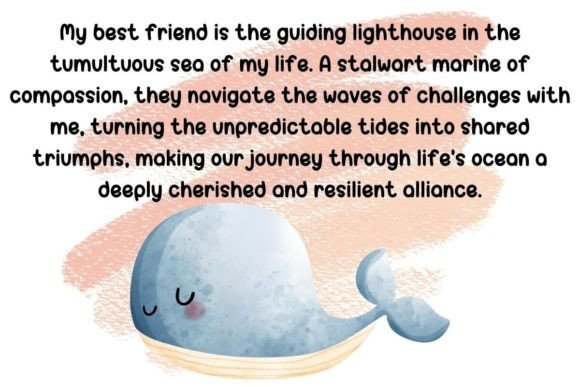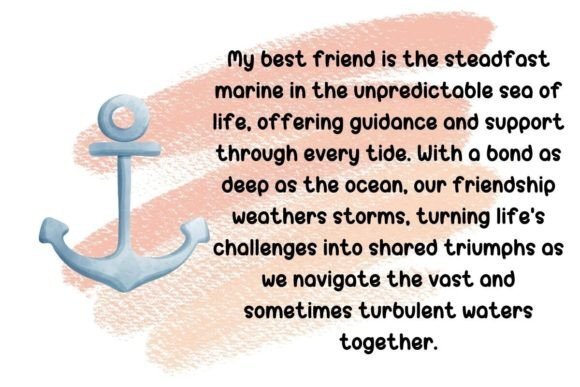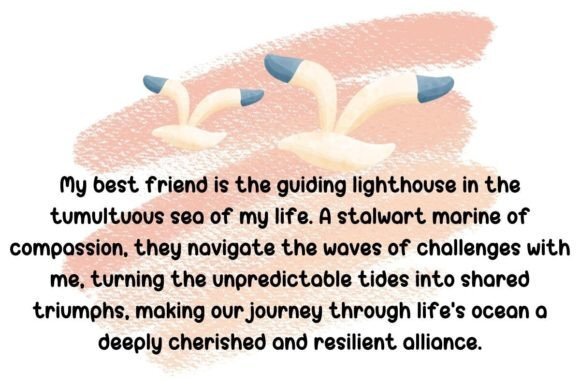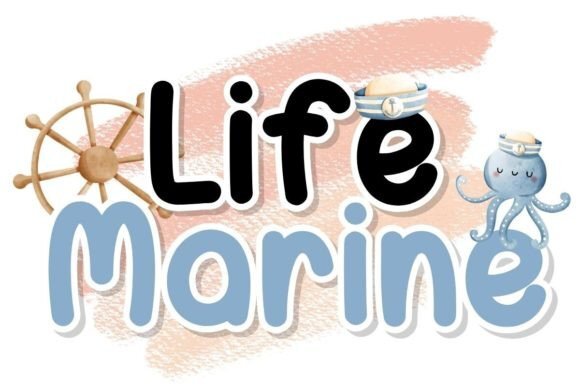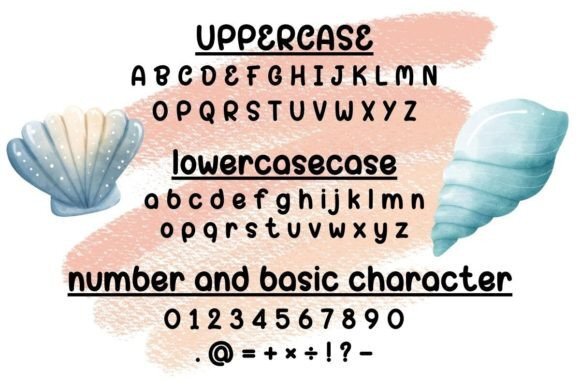
Life Marine Font
Sail into a world of whimsy with “Life Marine,” a font that echoes the gentle rhythm of ocean waves. Each letter is a playful sea sprite, dancing across your canvas. Immerse your words in the enchantment of marine magic – where the alphabet takes on a charming aquatic melody.